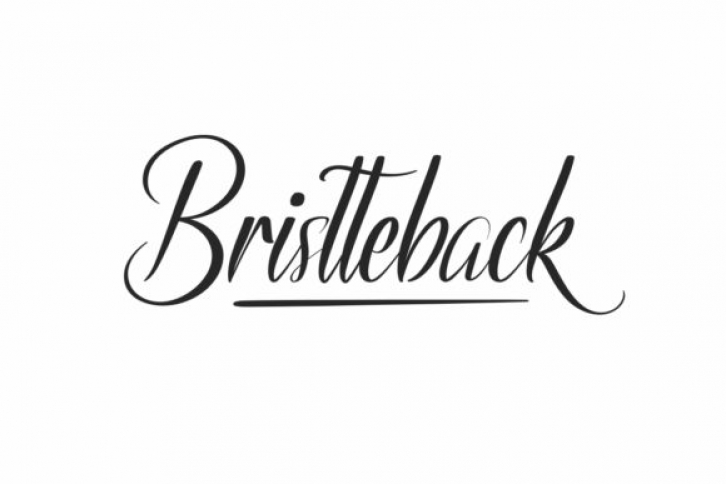
Bristteback is a beautiful handwritten font. Fall in love with its incredibly versatile style and use it to create gorgeous wedding invitations, beautiful stationary art, eye-catching social media posts, and much more!